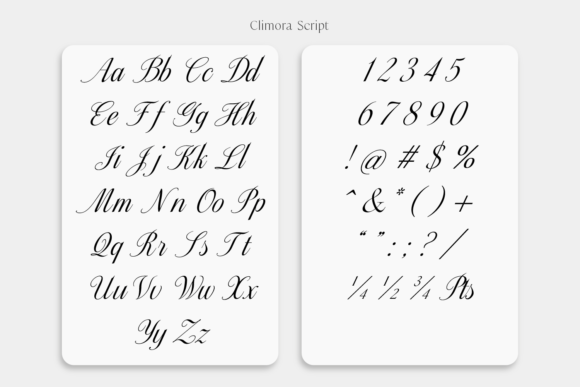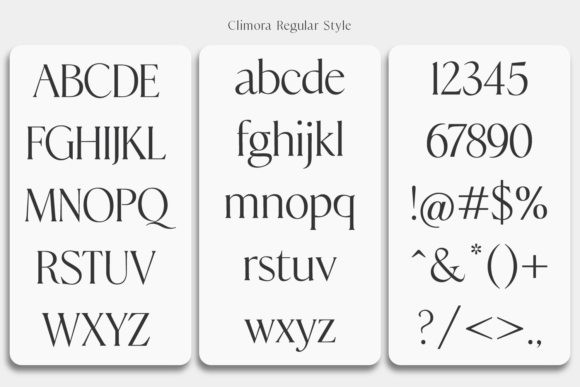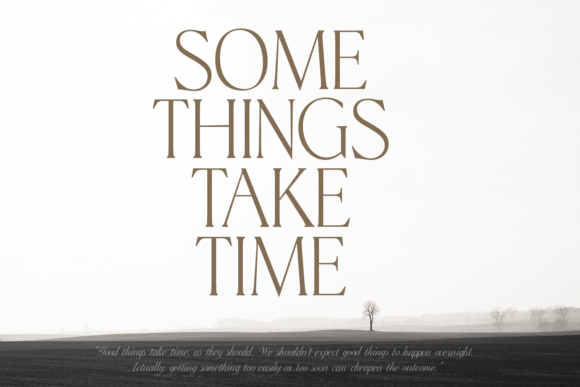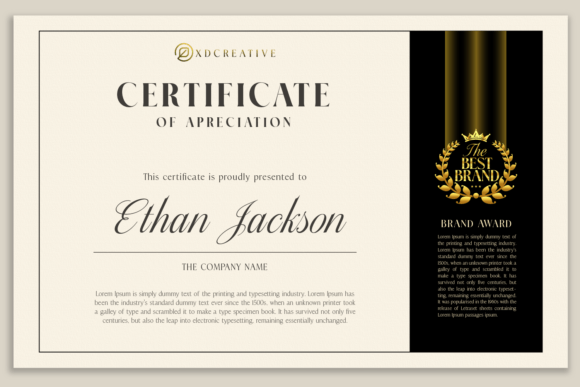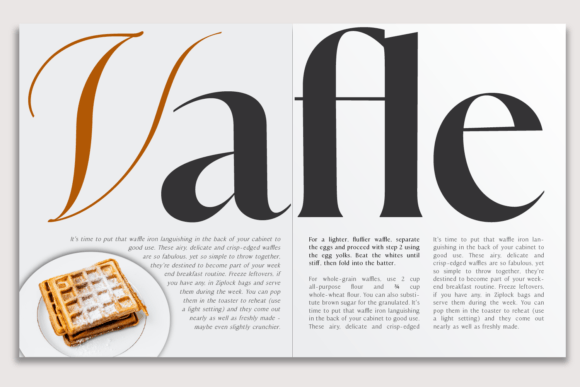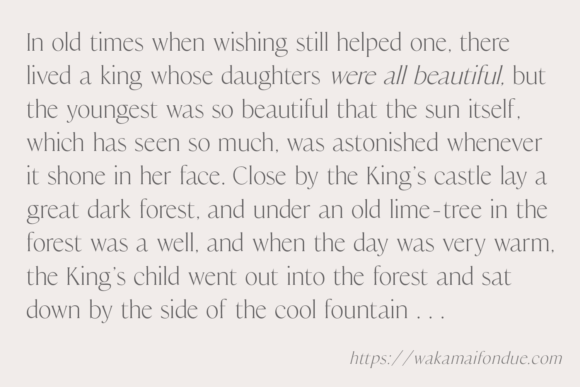
Introducing Climora Duo Font: Elevate Your Design with Elegance and Sophistication
In the world of typography, finding the perfect font combination that exudes luxury and elegance can be a daunting task. However, look no further than Climora Duo Font, a stunning pairing of a feminine, old-style serif typeface with an elegant script. This versatile font duo is designed to elevate your design to new heights, making it ideal for a wide range of applications, from logos and branding to wedding designs, social media, and beyond.
The Climora Duo: A Perfect Harmony of Style and Sophistication
Climora is a beautifully crafted font that combines the classic charm of a serif typeface with the fluidity and elegance of a script font. The serif component of Climora boasts a feminine touch, with delicate lines and curves that evoke a sense of nostalgia and refinement. Paired with the elegant script font, Climora Duo offers a unique and captivating visual experience that is sure to leave a lasting impression.
Endless Design Possibilities with Climora Duo Font
One of the standout features of Climora Duo Font is its incredible versatility. Whether you’re a designer, craftsperson, or DIY enthusiast, this font combination can be used to create a wide range of designs, including:
- Logos & Branding: Make a statement with your brand identity using Climora Duo Font. The elegant serif and script fonts work in harmony to create a sophisticated and memorable logo that reflects your brand’s values and personality.
- Invitations and Stationery: Add a touch of luxury to your invitations, greeting cards, and stationery with Climora Duo Font. The font’s classic charm and elegance make it perfect for formal events, weddings, and special occasions.
- Wedding Designs: Create stunning wedding designs, including invitations, programs, and decorations, with Climora Duo Font. The font’s romantic and elegant feel makes it ideal for wedding planners, designers, and couples looking for a unique and sophisticated look.
- Social Media and Advertisements: Elevate your social media presence and advertisements with Climora Duo Font. The font’s versatility and elegance make it perfect for creating eye-catching graphics, posters, and ads that grab attention and leave a lasting impression.
- Printed Quotes and Product Packaging: Add a touch of sophistication to your printed quotes, product packaging, and labels with Climora Duo Font. The font’s classic charm and elegance make it perfect for creating visually appealing designs that stand out from the crowd.
- Photography and Watermarks: Use Climora Duo Font to create elegant watermarks and overlays for your photographs. The font’s delicate lines and curves add a touch of refinement and sophistication to your images.
- Special Events and Magazine Layouts: Create stunning designs for special events, such as conferences, festivals, and exhibitions, with Climora Duo Font. The font’s versatility and elegance make it perfect for magazine layouts, flyers, and brochures.
Why Choose Climora Duo Font?
So, why choose Climora Duo Font for your design projects? Here are just a few reasons:
- Unique and Elegant: Climora Duo Font offers a unique and elegant combination of serif and script fonts that will elevate your design to new heights.
- Versatile: The font duo is incredibly versatile and can be used for a wide range of design applications.
- Easy to Read: Climora Duo Font is easy to read, making it perfect for body text, headings, and titles.
- High-Quality: The font is designed to deliver high-quality results, with crisp and clear lines that look stunning on any device or medium.
| Font Name | Climora Duo Font |
In conclusion, Climora Duo Font is a stunning font combination that offers a unique and elegant solution for designers, craftspersons, and DIY enthusiasts. With its versatility, elegance, and sophistication, Climora Duo Font is perfect for a wide range of design applications, from logos and branding to wedding designs, social media, and beyond. So why wait? Download Climora Duo Font today and elevate your design to new heights!